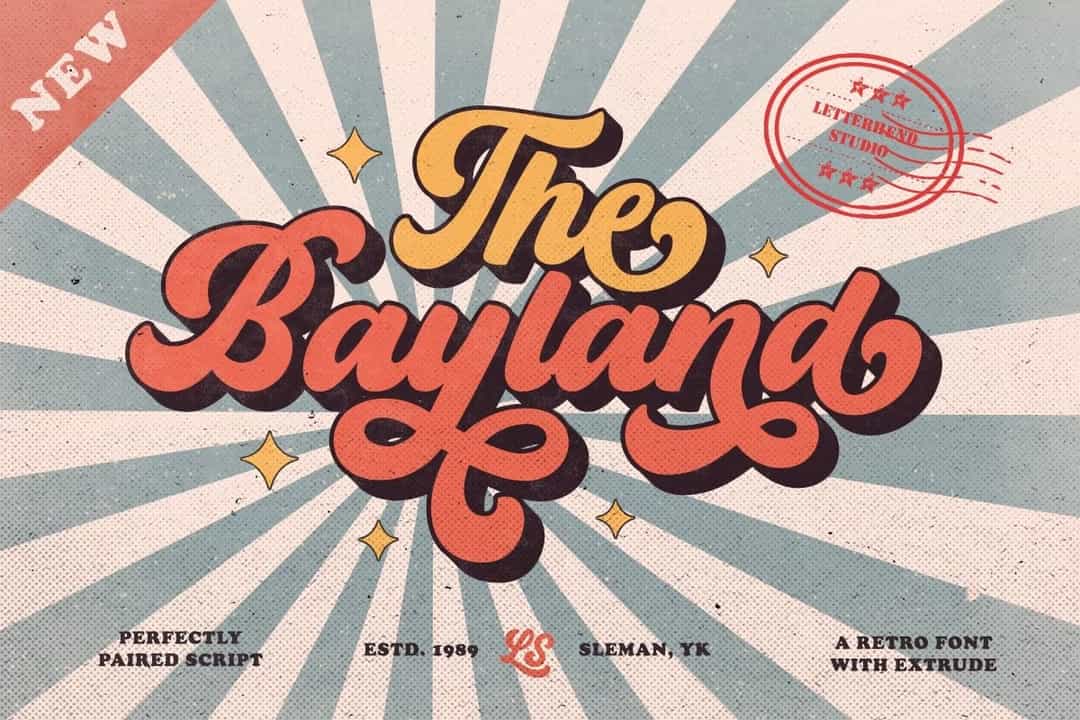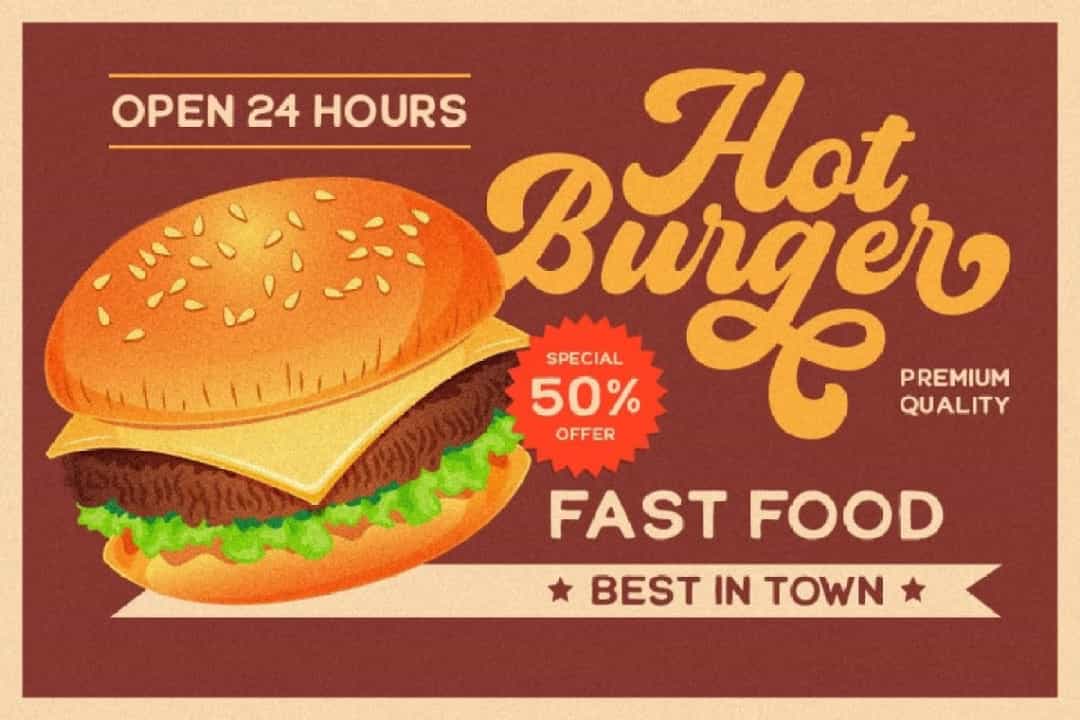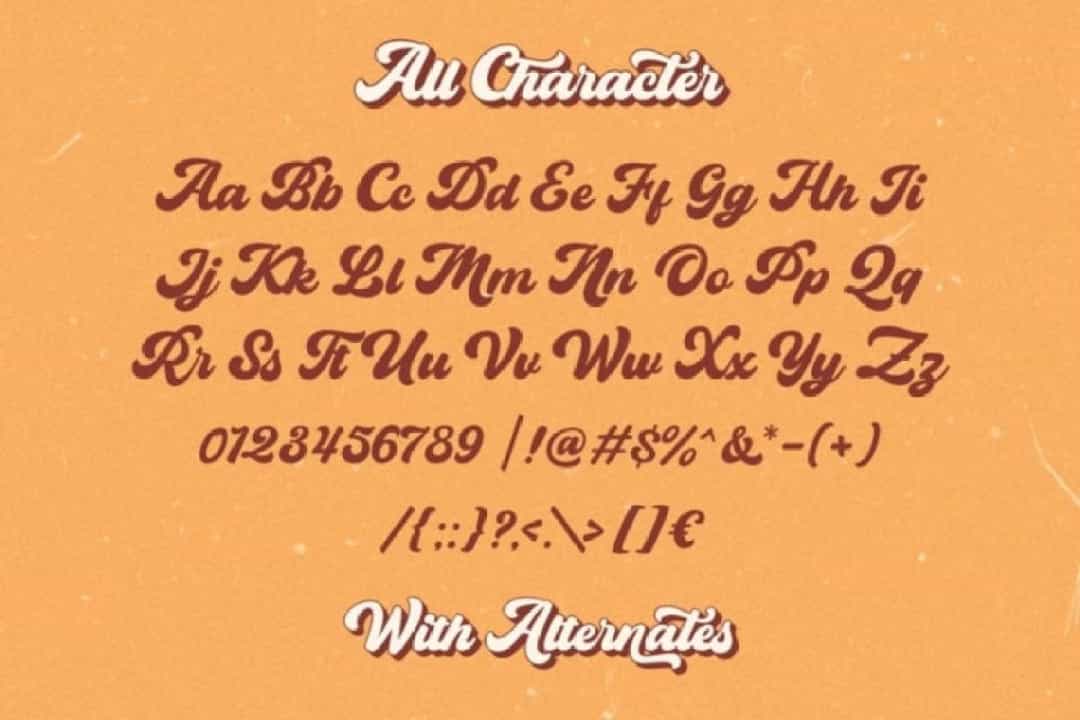
Bayland, A retro bold script that creates the atmosphere of the 1960s aesthetics. The typeface is an extrude type that will enable you to achieve the vintage style of the font with a lot of ease. This typeface is best suited for use in logos and other kinds of formats such as labels, invitations, books, magazines, logos, as well as wedding and greeting cards packaging fashion, makeup books, stationery labels, and all other purposes of advertising.